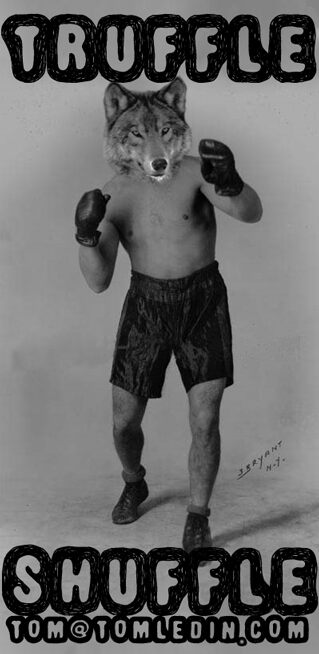
Truffle-Shuffle by Tom Ledin is a free outlined cartoon display font built from plump, irregular capitals. Each letter has an open center wrapped in several restless, hand-drawn contours. The doubled and overlapping lines look deliberately scribbled.
A candy shop, toy label, or children's event could use its bouncy shapes to suggest messy, hands-on fun. It also suits comic covers and playful music merchandise, where the oversized forms can act almost like drawn objects. The repeated sketchy outline connects especially well with doodles, stickers, and other marker-style illustration.